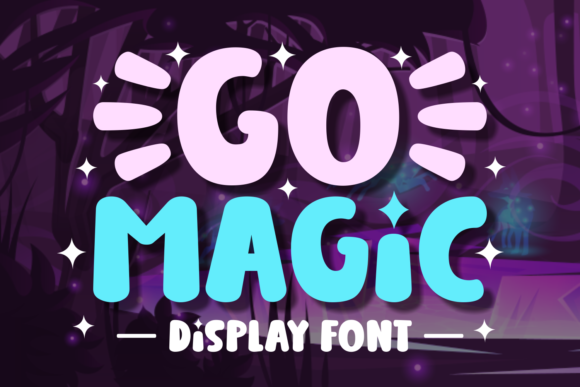
Go Magic Font
Unleash the magic of Go Magic Font, a captivating display font tailored to inject boldness and creativity into your digital artistry. Dive into a world of captivating designs with Go Magic, the font that transforms ordinary words into extraordinary creations.
Go Magic, a brainchild of Creative Fabrica Fonts, captivates audiences with its enchanting aura, perfect for crafting eye-catching banners, book covers, posters, ads, and social media posts that leave a lasting impact. Experience the thrill of witnessing your designs come alive with Go Magic's enchanting strokes, leaving viewers spellbound.
With Go Magic, you hold the key to unlocking a treasure trove of design possibilities. Its versatility knows no bounds, adapting seamlessly to any creative endeavor. Whether you seek to craft enchanting invitations, mesmerizing logos, or captivating social media graphics, Go Magic serves as your trusty companion, transforming your ideas into visual masterpieces.
Step into a realm of boundless creativity with Go Magic, where your imagination reigns supreme. Its enchanting characters ignite a spark of inspiration, urging you to push the boundaries of design and create works of art that dance off the screen. Go Magic awakens the artist within, empowering you to weave tales of wonder and enchantment through your digital creations.